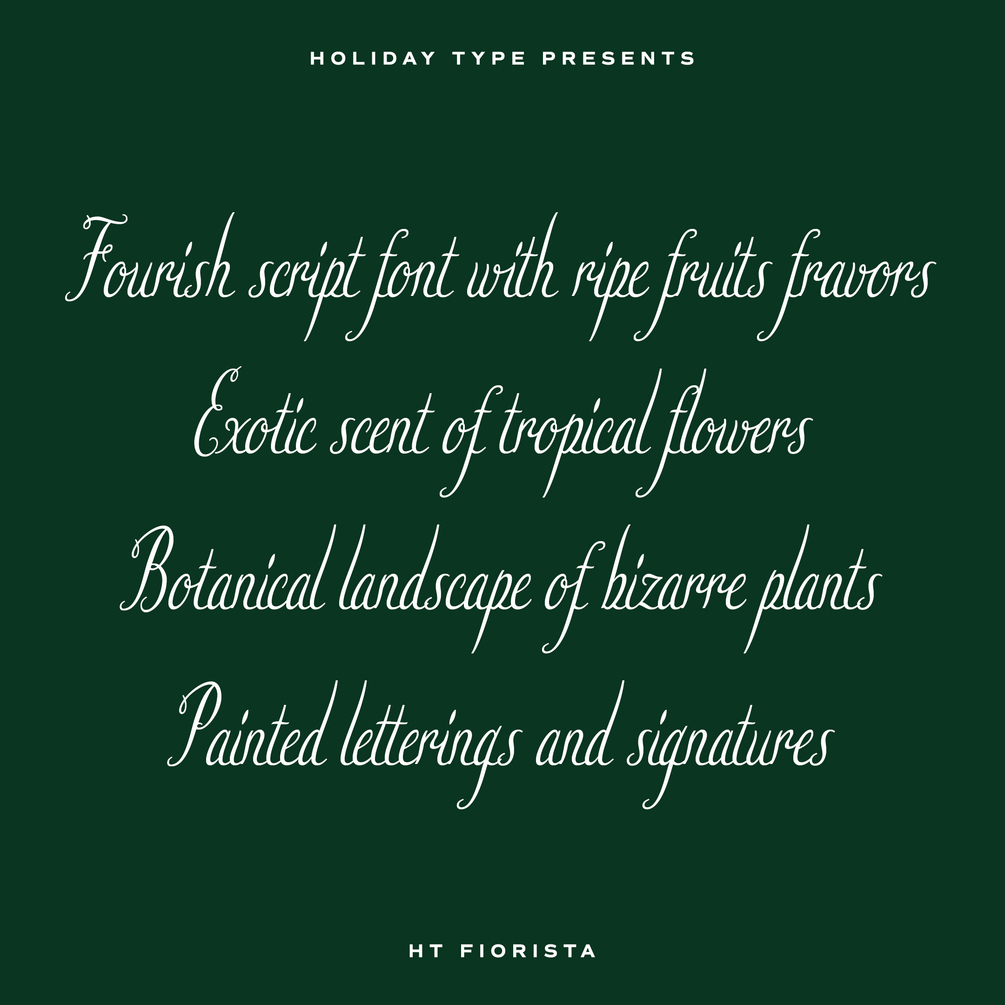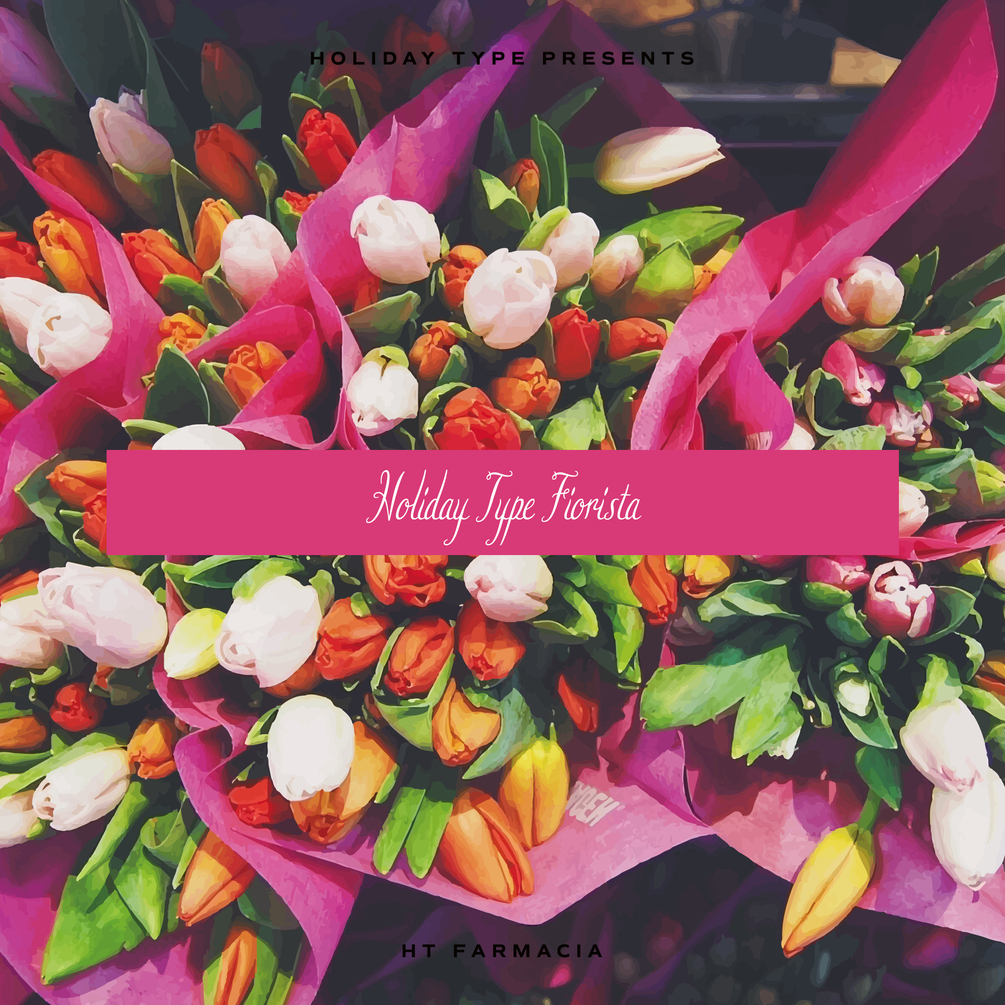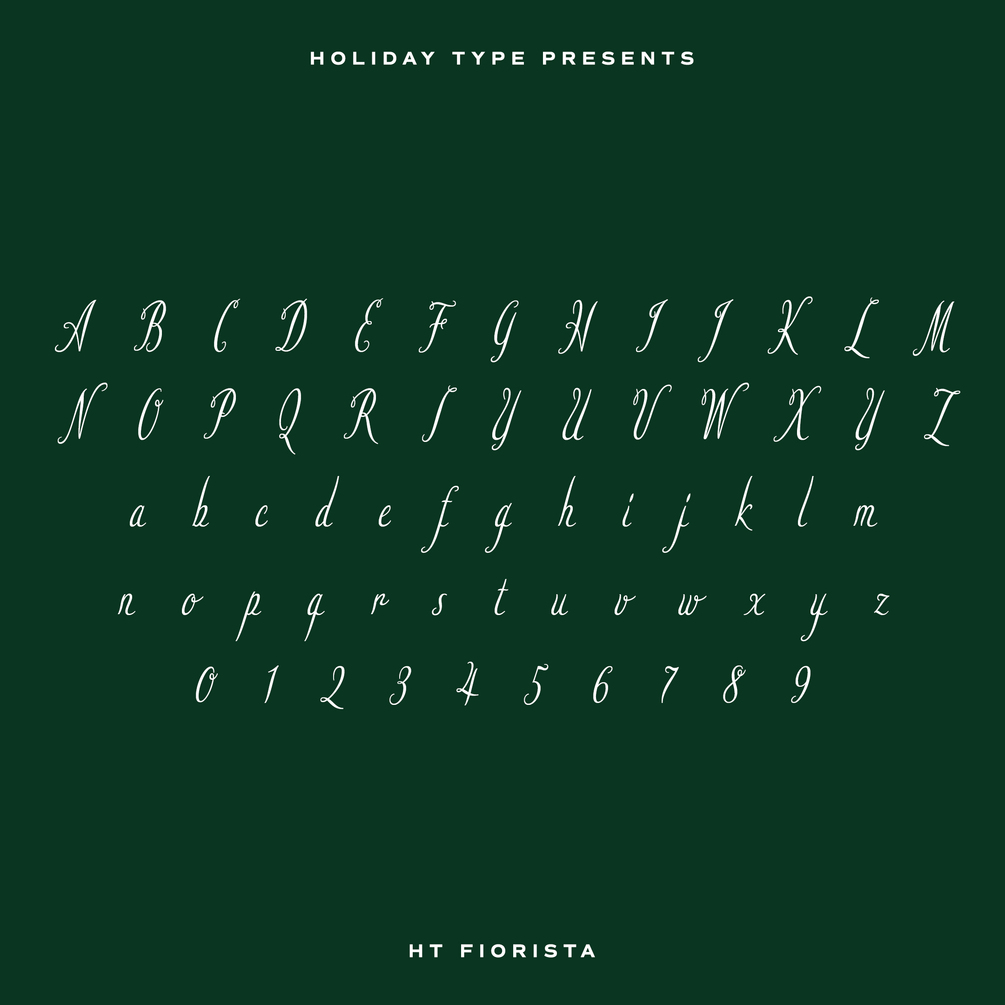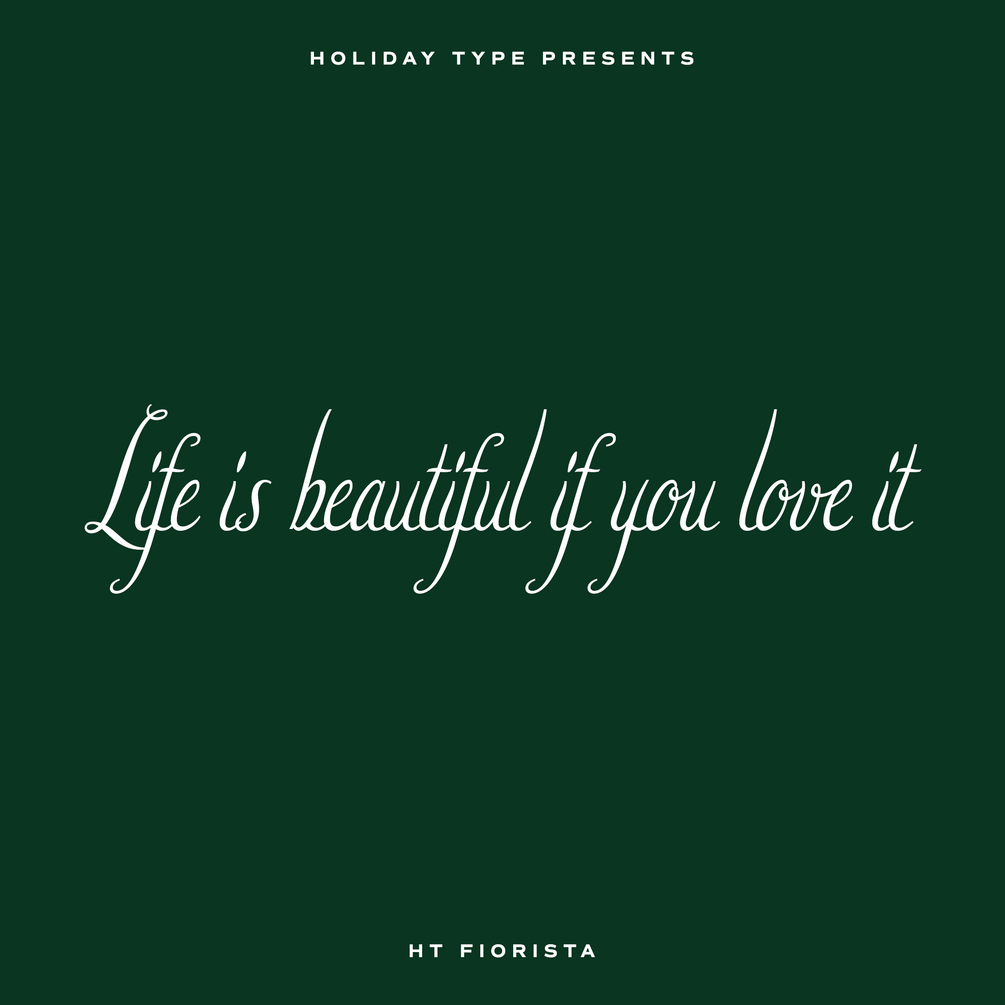
HT Fiorista
Retro script based on shopfront lettering, wallpaint advertisements in Italy around 1950s. Fiorista is a pretty brush scrip with thin and curly line. Florists works best for greeting card, wedding ceremony invitation or shop card of fashion or apparel. It could also be used for film, magazines, advertising and websites.